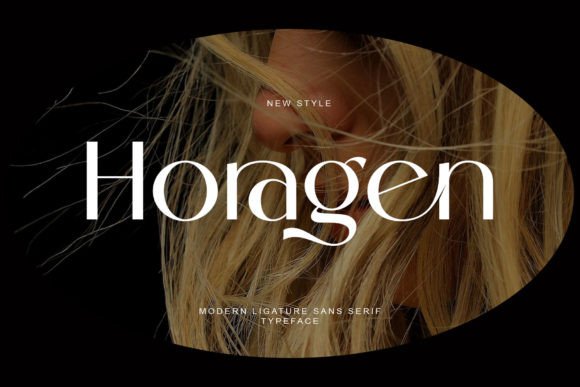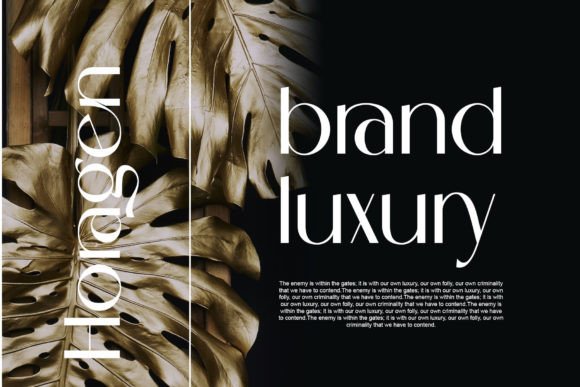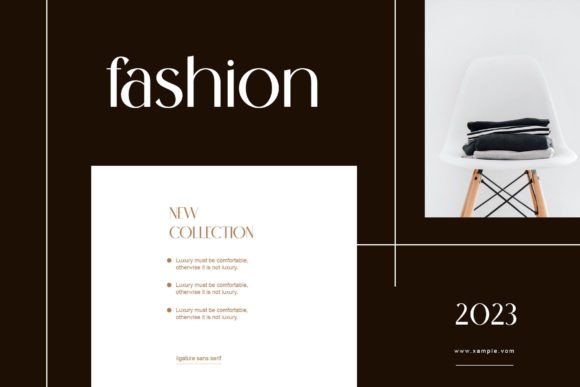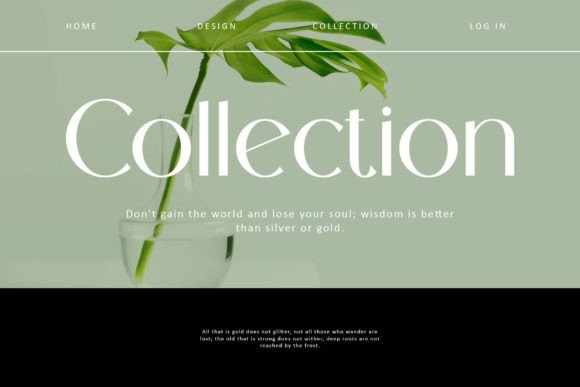
Horagen Font: Elegant Sans Serif for Luxury Logo Design & Branding
About the Horagen Font
We are excited to introduce Horagen Font, a must-have typeface for any serious designer. Horagen is a sans serif font with simple, clean, and visual elegance. Specially designed for elegant-themed projects, perfectly suitable for creating luxurious designs such as logos, invitations for fashion events, magazines, and more. Keep in mind that the font is PUA encoded, meaning that you can access all delightful glyphs and swashes effortlessly.
Horagen’s elegant personality makes it ideal for headlines, short text blocks in brochures or websites, and high-end branding applications where sophistication is key. It excels in logo design, packaging for luxury goods, and invitations, lending a timeless quality. However, its refined strokes are less suited for large bodies of text or UI elements; the delicate details can become less legible at smaller sizes.
Pairing Horagen effectively requires considering its inherent elegance. A classic serif like Garamond or a geometric sans-serif such as Futura provides a strong contrast and balance, grounding the design. For a softer pairing, consider a script font like Playfair Display for a touch of handwritten charm, though use sparingly to avoid overwhelming Horagen’s subtle strength.
Its overall aesthetic is one of refined modernism, conveying both sophistication and understated confidence. Brands seeking to project luxury, exclusivity, or a sense of timeless style will find Horagen an excellent choice.